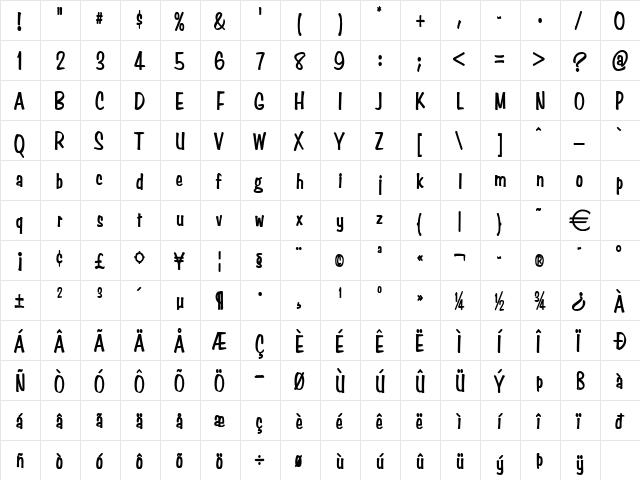
SimpsonCondensedHeavy Normal
Design Context for SimpsonCondensedHeavy Typeface
SimpsonCondensedHeavy is a composed and adaptable typeface that performs quietly and consistently across a wide range of design contexts. Its narrow stance lets it pack a punch even in space-constrained designs.